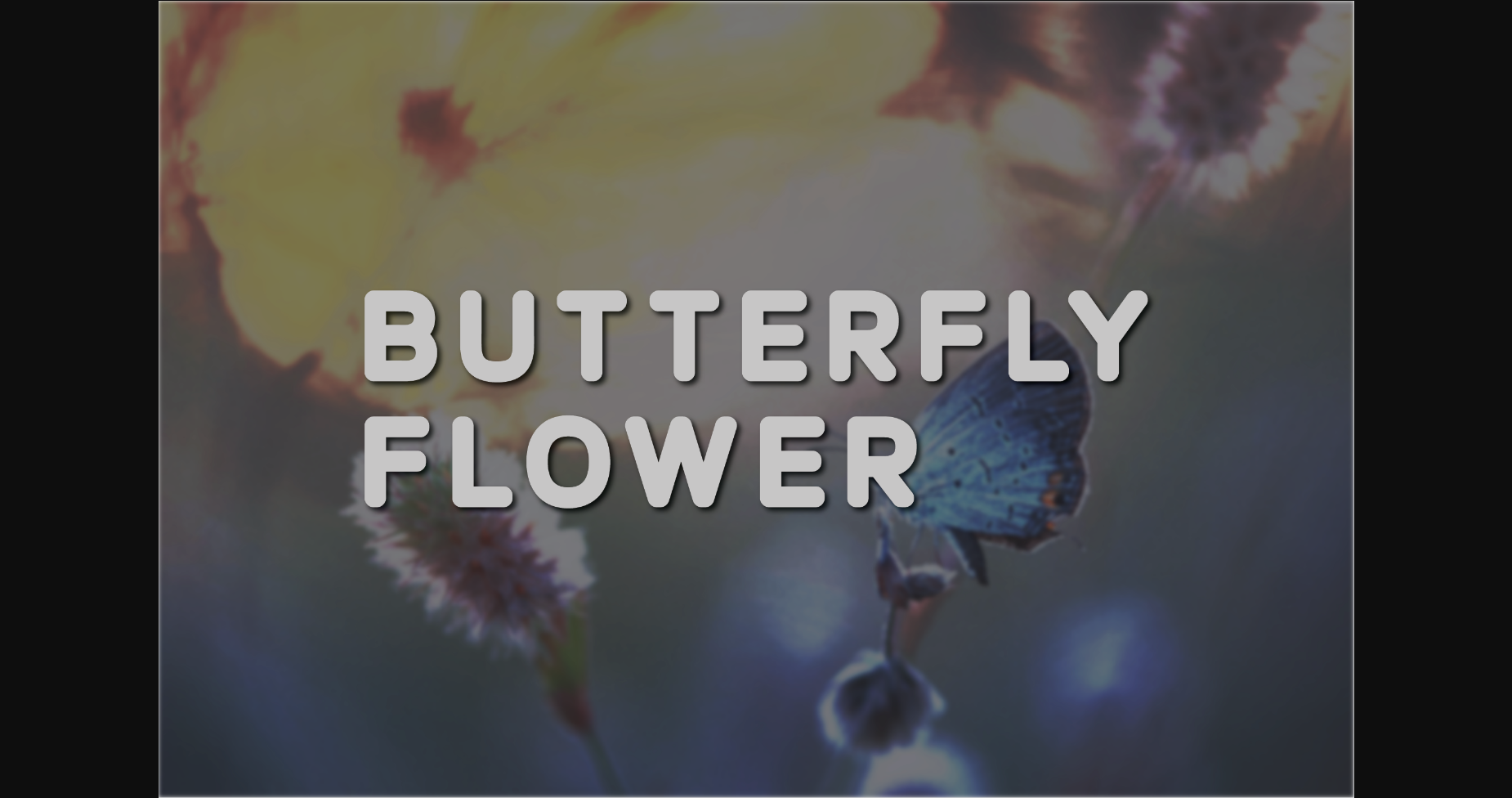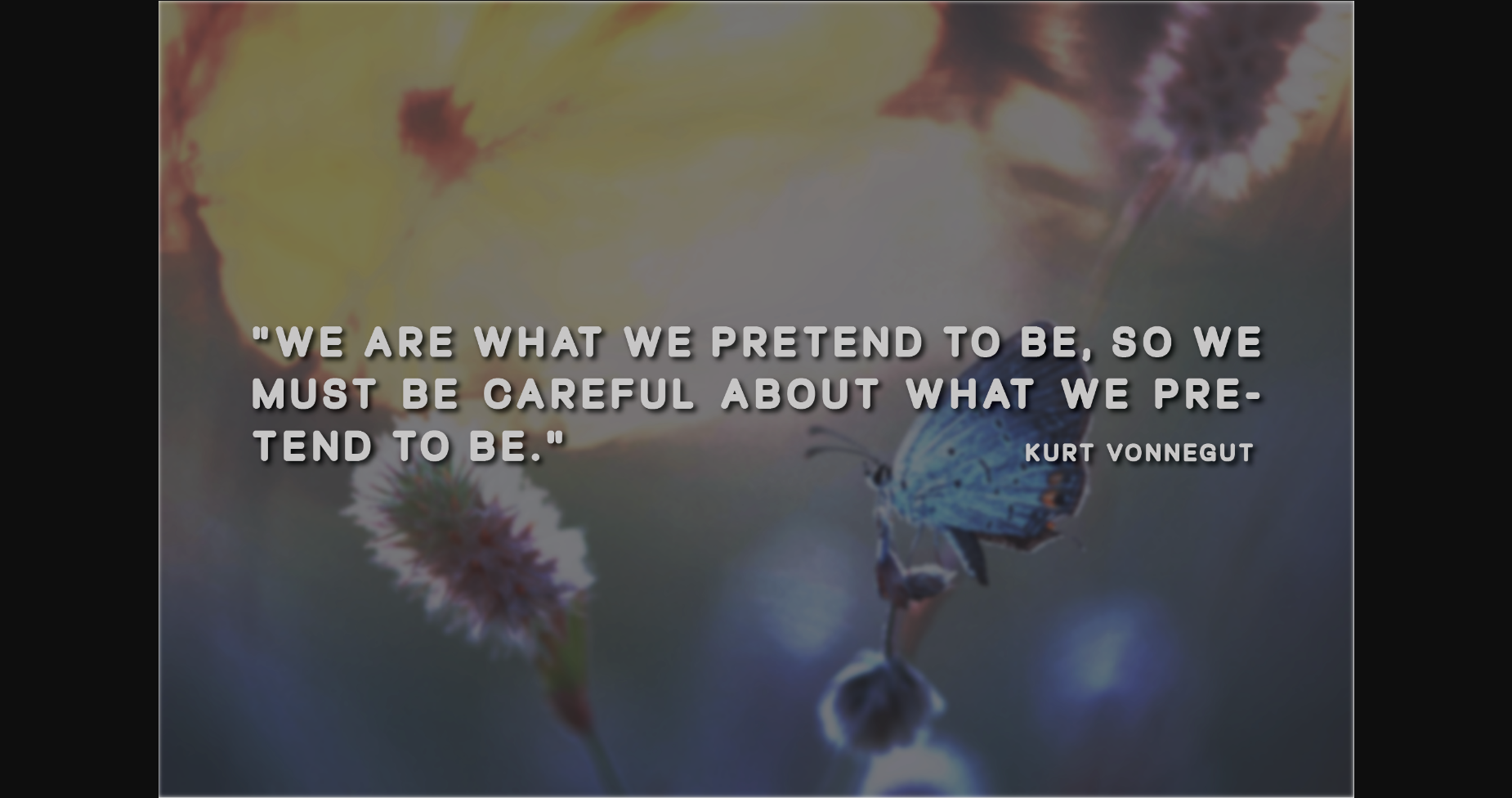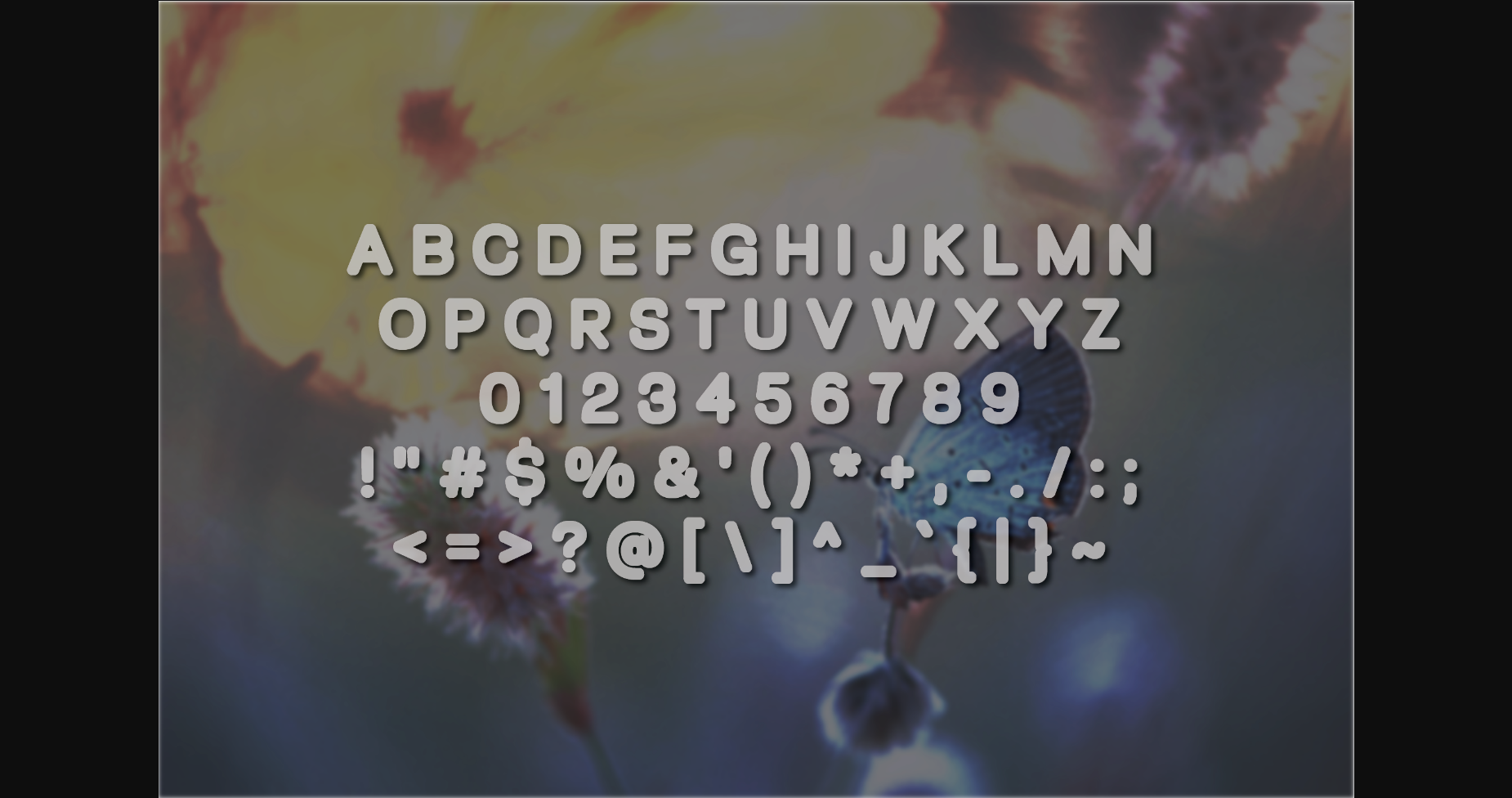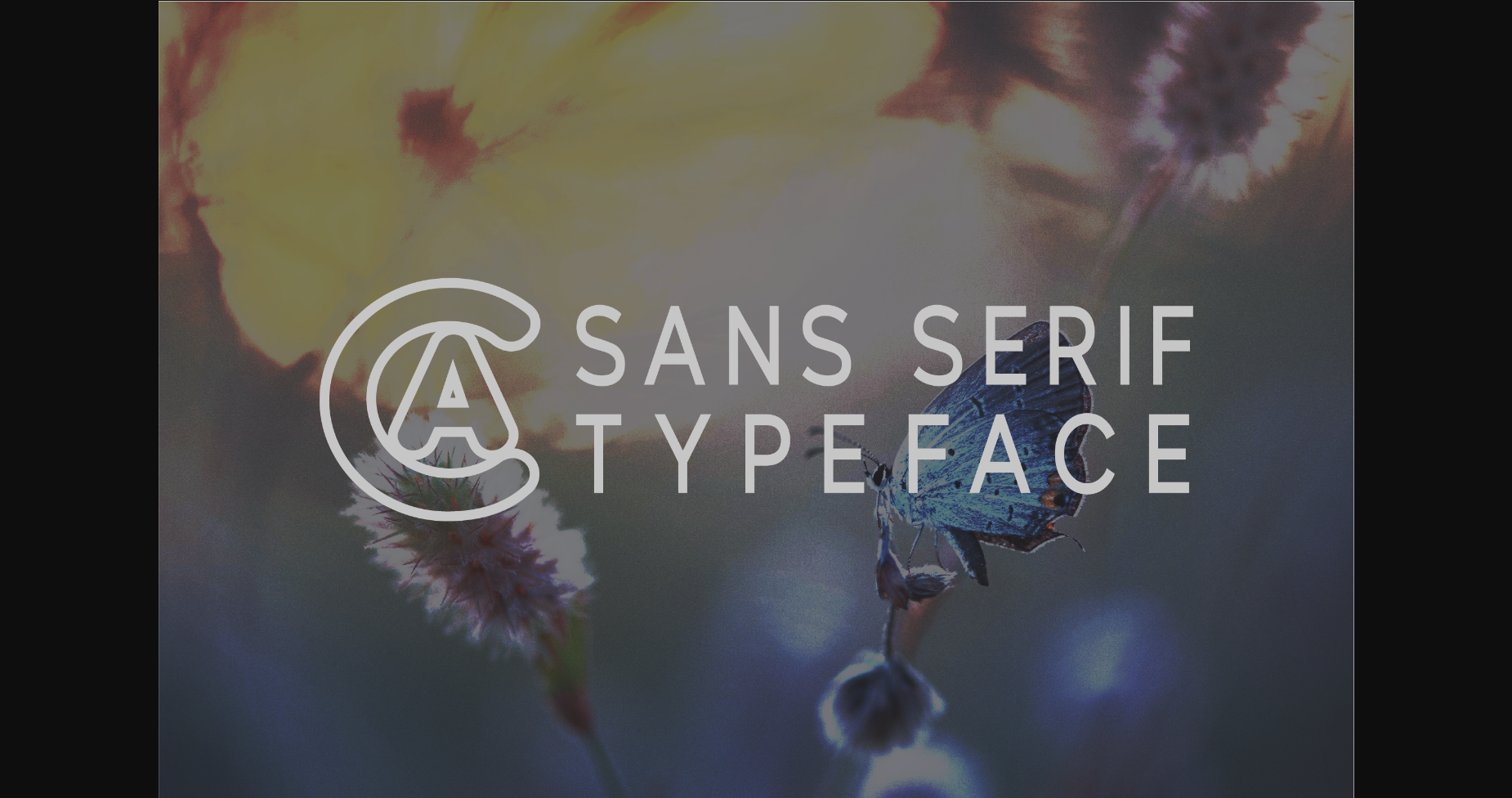
Butterfly Flower Font
About Butterfly Flower Font
Butterfly Flower is a versatile, modern, and classy sans serif font perfect for logos, weddings, invitations, quotes, advertisements, print, magazines, and more. Add it to your most creative ideas, and notice how it makes them come alive!